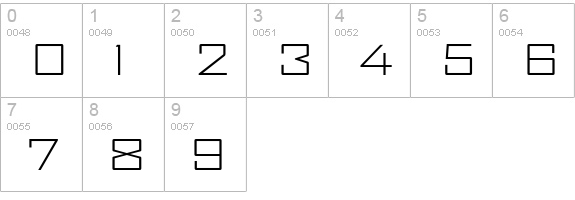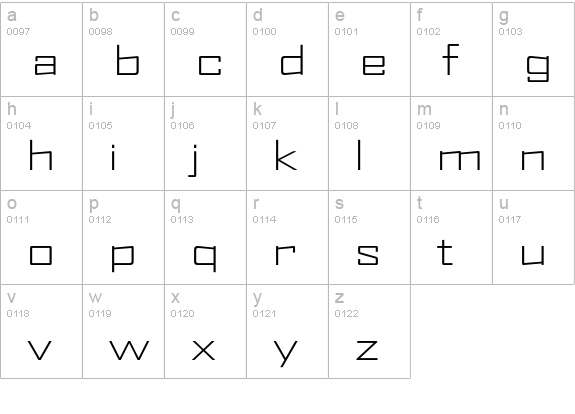
AgencyFB-LightExtended Font Details
AgencyFB-LightExtended is a modern and sleek font that exudes sophistication and professionalism. With its clean lines and elegant curves, this font is perfect for creating eye-catching designs that demand attention. The light weight of the font adds a touch of elegance and refinement to any project. Whether you are designing a logo, website, or marketing materials, AgencyFB-LightExtended is sure to make a lasting impression. The best part is that AgencyFB-LightExtended is available for free download at FontsMarket.com. This means you can easily access this high-quality font without having to spend a dime. Don't miss out on the opportunity to enhance your designs with this stylish and versatile font. Download AgencyFB-LightExtended today and take your projects to the next level!